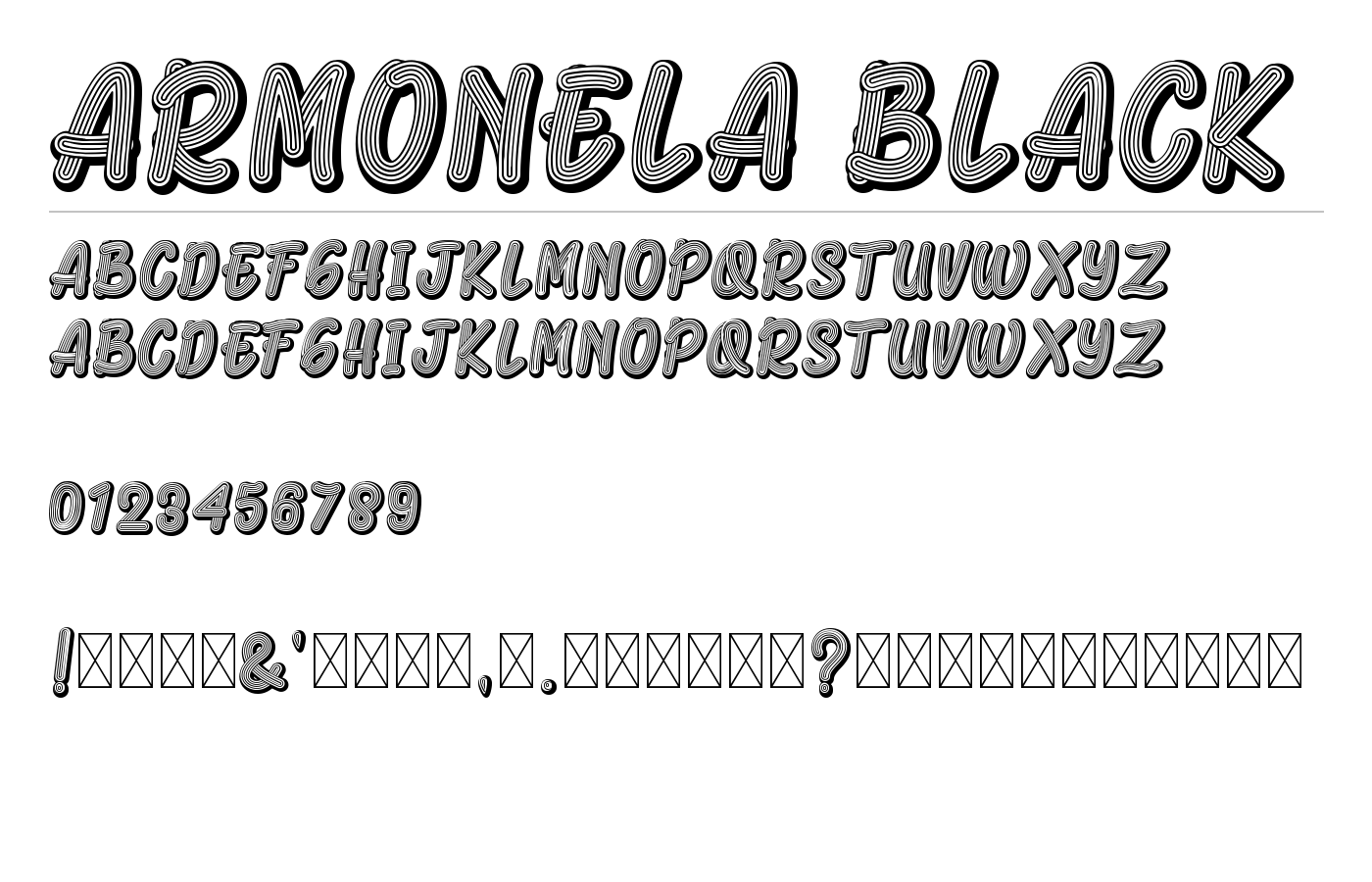
Armonela Black is a bold, playful sans serif font characterized by its layered, striped interior strokes and strong shadow effect that create a sense of depth and motion. Its uppercase letterforms are rounded and slightly condensed, offering a modern and dynamic feel perfect for eye-catching headlines, logos, or creative branding. This font works well where a fun, energetic, and distinctive style is needed to stand out and engage viewers.
Armonela Black Font
About Armonela Black Font